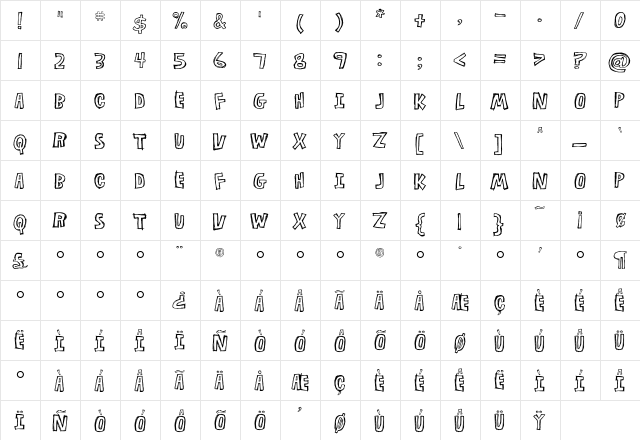
Flyerfonts Corrosion
Design Context for Flyerfonts Typeface
Flyerfonts is a composed and adaptable typeface that performs quietly and consistently across a wide range of design contexts.